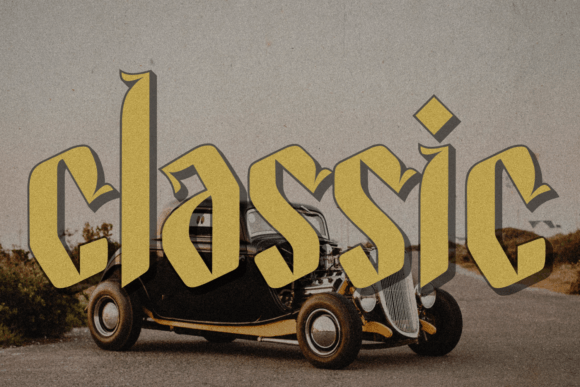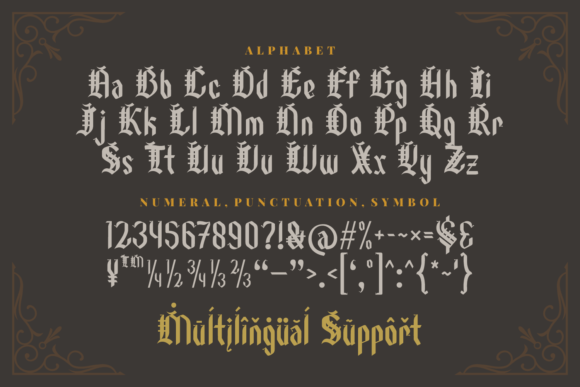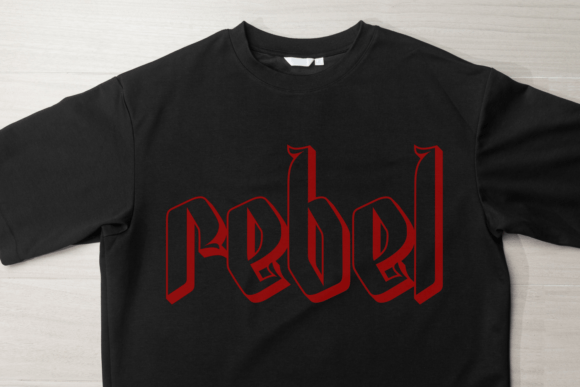
Introducing Greosa Font: A Timeless Blackletter Classic
Are you a designer or crafter looking for a font that exudes vintage charm and sophistication? Look no further than Greosa Font, a classic blackletter font that is sure to elevate your typography designs to the next level. With its captivating and distinctive look, Greosa Font is perfect for a wide range of projects, from posters and t-shirts to product packaging and book covers.
The Characteristics of Greosa Font
Greosa Font is a traditional blackletter font with a rich history and a unique aesthetic. Its vintage look is reminiscent of classic Gothic scripts, with intricate flourishes and ornate details that add a touch of elegance to any design. The font’s bold and dramatic appearance makes it perfect for headlines, titles, and other display text, while its clear and legible design ensures that it remains readable even at smaller sizes.
What Makes Greosa Font So Versatile?
One of the key benefits of Greosa Font is its incredible versatility. Whether you’re working on a poster, t-shirt, or product packaging, this font is sure to make a statement. Its bold and eye-catching design makes it perfect for:
- Posters: Create striking posters that grab attention with Greosa Font’s bold and dramatic appearance.
- T-shirts: Add a touch of vintage flair to your t-shirt designs with Greosa Font’s unique and captivating look.
- Product packaging: Elevate your product packaging with Greosa Font’s sophisticated and elegant design.
- Advertisements: Make your ads stand out from the crowd with Greosa Font’s bold and attention-grabbing appearance.
- Cards and headers: Add a touch of class to your cards and headers with Greosa Font’s intricate and ornate details.
- Headlines and titles: Use Greosa Font to create stunning headlines and titles that command attention.
- Book covers: Create eye-catching book covers that showcase Greosa Font’s unique and captivating design.
Why Choose Greosa Font?
So why choose Greosa Font for your next design project? Here are just a few reasons:
- Unique and captivating design: Greosa Font’s vintage look is unlike any other font on the market, making it sure to make your designs stand out.
- Highly versatile: Greosa Font can be used on a wide range of projects, from posters and t-shirts to product packaging and book covers.
- Elegant and sophisticated: Greosa Font’s intricate flourishes and ornate details add a touch of elegance and sophistication to any design.
- Easy to read: Despite its bold and dramatic appearance, Greosa Font remains clear and legible even at smaller sizes.
Tips for Using Greosa Font
To get the most out of Greosa Font, here are a few tips to keep in mind:
- Use it boldly: Greosa Font is designed to make a statement, so don’t be afraid to use it boldly and dramatically.
- Experiment with colors: Greosa Font looks great in a wide range of colors, so don’t be afraid to experiment and find the perfect hue for your design.
- Pair it with other fonts: Greosa Font pairs well with a wide range of other fonts, so feel free to get creative and experiment with different combinations.
In conclusion, Greosa Font is a timeless blackletter classic that is sure to elevate your typography designs to the next level. With its captivating and distinctive look, Greosa Font is perfect for a wide range of projects, from posters and t-shirts to product packaging and book covers. Whether you’re a designer or crafter, Greosa Font is a must-have font that is sure to inspire and delight.